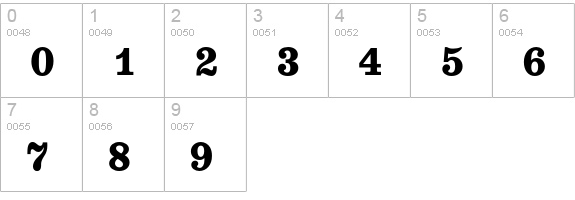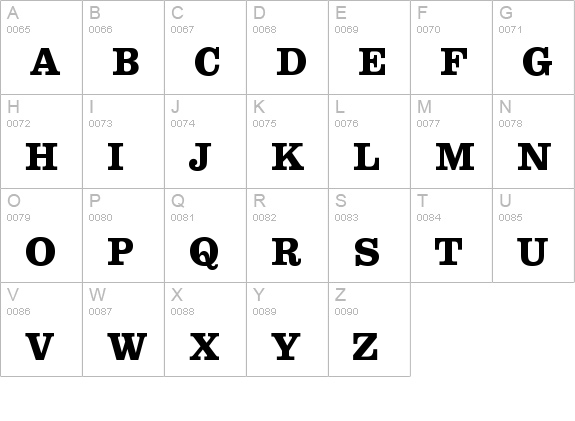
Egizio-Bold Font Details
Egizio-Bold is a strong, high-contrast variant in the Egizio typeface family \xE2\x80\x94 well suited to headlines, attention-grabbing titles, and strong calls-to-action.
Egizio-Bold is a stunning and versatile font that exudes elegance and sophistication. Its bold and strong letterforms make it perfect for headlines, titles, and any design that requires a touch of boldness. With its clean lines and classic style, Egizio-Bold is sure to make a statement and leave a lasting impression. One of the best things about Egizio-Bold is that it is free to download. You read that right, this incredible font can be yours for absolutely no cost. Thanks to FontsMarket.com, you can easily access and download Egizio-Bold without any hassle. Whether you're a professional designer or a casual enthusiast, having access to this exceptional font will elevate your design projects to new heights. Egizio-Bold is not only visually captivating, but it also offers great legibility and readability. Each character is meticulously crafted, ensuring that every word and sentence is clear and easy to read. This makes Egizio-Bold perfect for a wide range of applications, including advertisements, packaging, branding, and more. So why wait? If you're in need of a bold and impactful font that is both visually stunning and freely available, look no further than Egizio-Bold. Download it now at FontsMarket.com and embark on a design journey that will captivate and impress. Let Egizio-Bold be the font that takes your designs to the next level.